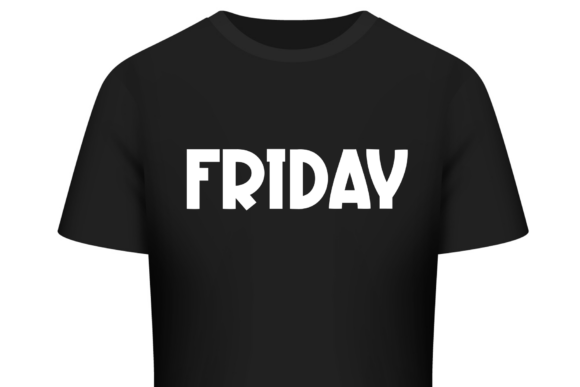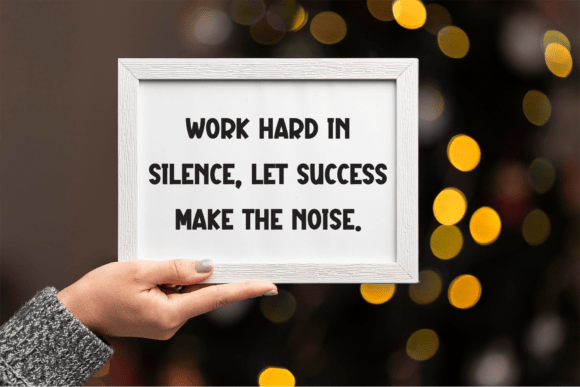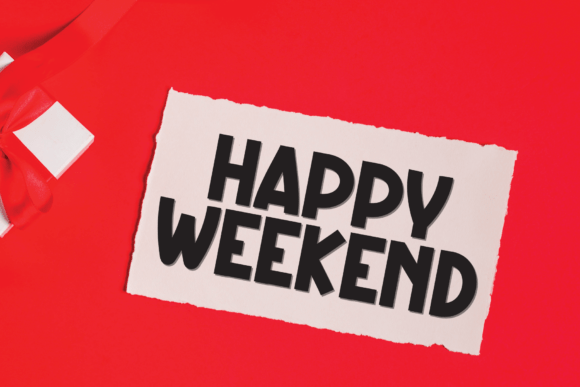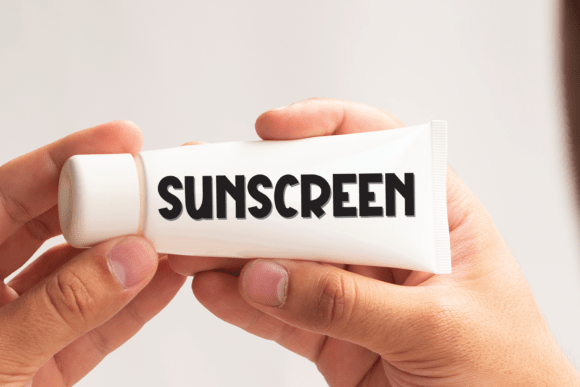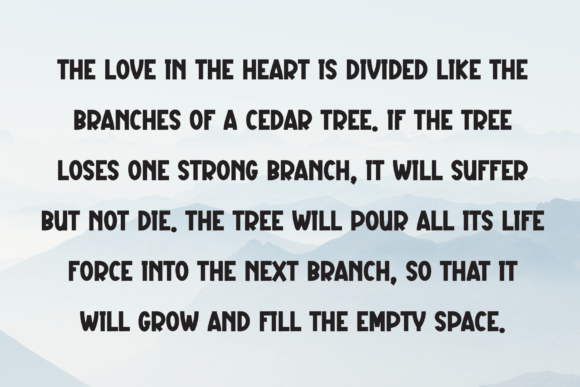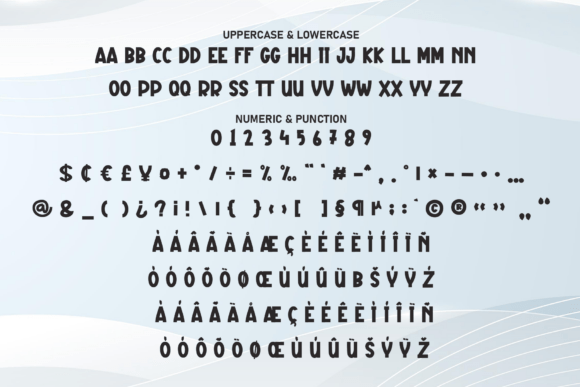
Introducing Bigday Font: The Ultimate Choice for Fun and Relaxation
Are you tired of using the same old fonts for your creative projects? Look no further than Bigday Font, a neat and casual display font that’s perfect for adding a touch of fun and relaxation to your designs. With its clean lines and easygoing vibe, Bigday Font is ideal for summer posters, event flyers, and playful branding.
The Characteristics of Bigday Font
So, what makes Bigday Font so special? For starters, its clean lines and simple design make it easy to read and understand. The font’s casual and laid-back feel is perfect for creating a relaxed and friendly atmosphere in your designs. Whether you’re working on a summer poster or a playful branding campaign, Bigday Font is sure to bring a breezy, laid-back feel to your project.
Uses for Bigday Font
Bigday Font is a versatile font that can be used for a wide range of creative projects. Here are just a few ideas to get you started:
- Summer Posters: Bigday Font is perfect for creating eye-catching summer posters that scream fun and relaxation. Use it to promote your summer sale, concert, or festival.
- Event Flyers: Whether you’re hosting a wedding, birthday party, or corporate event, Bigday Font is a great choice for your event flyer. Its playful and upbeat vibe is sure to get your guests excited.
- Playful Branding: Bigday Font is also perfect for creating playful and fun branding for your business. Use it to create a logo, business card, or packaging design that stands out from the crowd.
Benefits of Using Bigday Font
So, why should you choose Bigday Font for your next creative project? Here are just a few benefits:
- Easy to Read: Bigday Font is clean and easy to read, making it perfect for use in a variety of contexts.
- Fun and Relaxed: The font’s playful and laid-back vibe is sure to bring a fun and relaxed feel to your designs.
- Versatile: Bigday Font can be used for a wide range of creative projects, from summer posters to playful branding.
Tips for Using Bigday Font
Here are a few tips for getting the most out of Bigday Font:
- Use it in Large Sizes: Bigday Font is perfect for use in large sizes, such as headings and titles.
- Experiment with Colors: The font’s playful vibe makes it perfect for use with bright and bold colors.
- Pair it with Other Fonts: Bigday Font can be paired with other fonts to create a unique and interesting look.
In conclusion, Bigday Font is a fun and relaxed display font that’s perfect for adding a touch of fun and relaxation to your creative projects. With its clean lines and easygoing vibe, it’s ideal for summer posters, event flyers, and playful branding. Whether you’re a designer or crafter, Bigday Font is a great choice for anyone looking to add a little fun and personality to their designs.
Bigday Font: The Perfect Choice for Designers and Crafters
Whether you’re a designer or crafter, Bigday Font is a great choice for anyone looking to add a little fun and personality to their designs. Its clean lines and easygoing vibe make it perfect for a wide range of creative projects, from summer posters to playful branding. So why not give Bigday Font a try and see how it can add a touch of fun and relaxation to your designs?